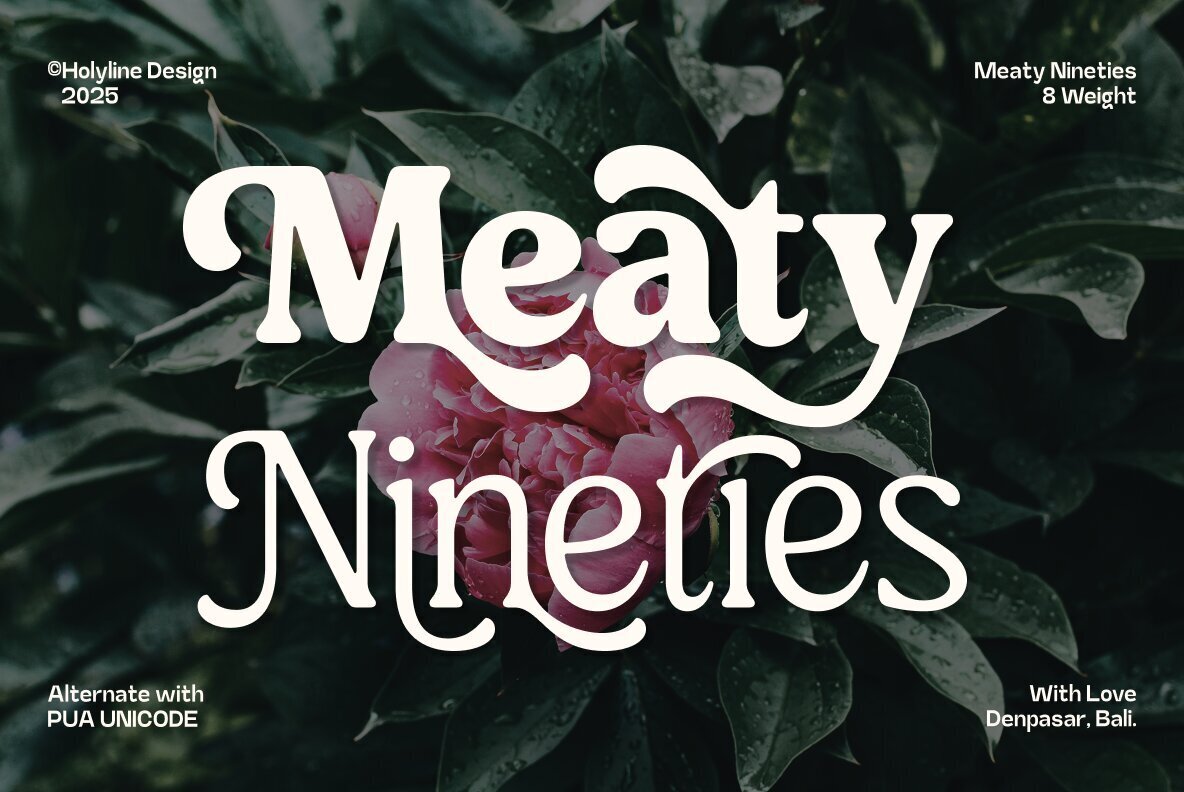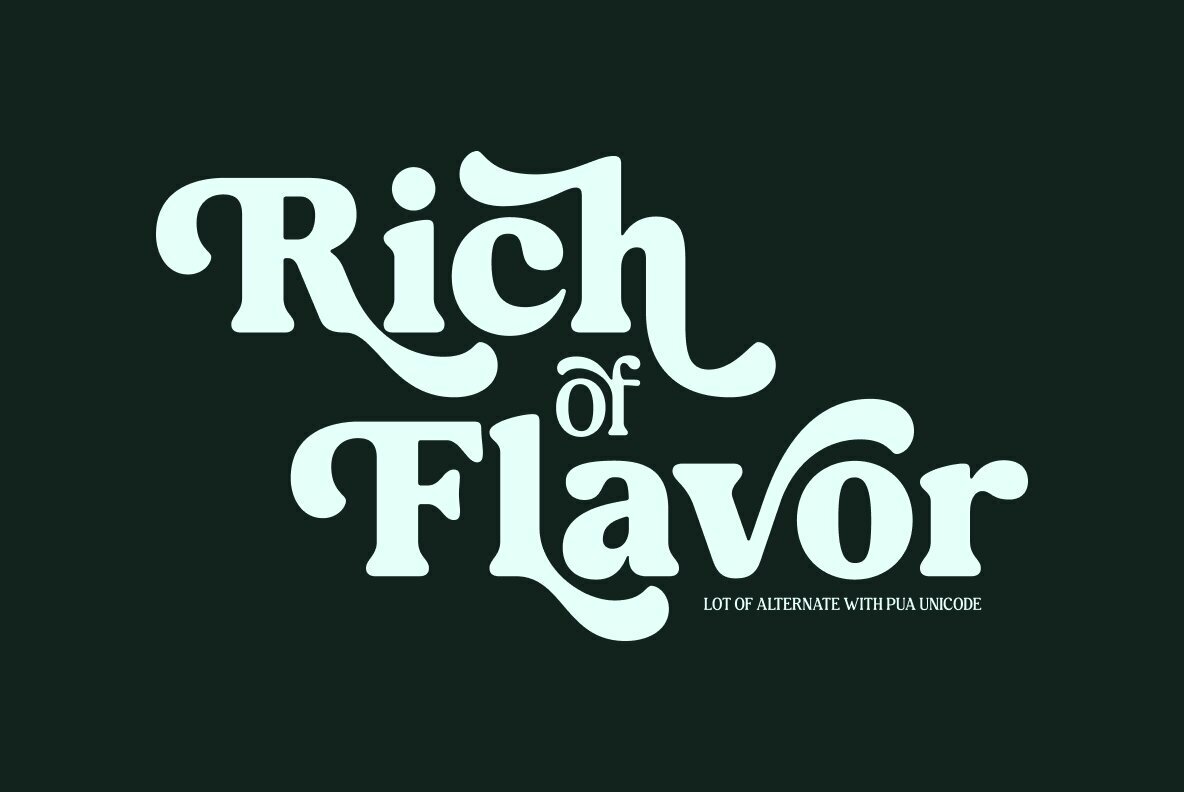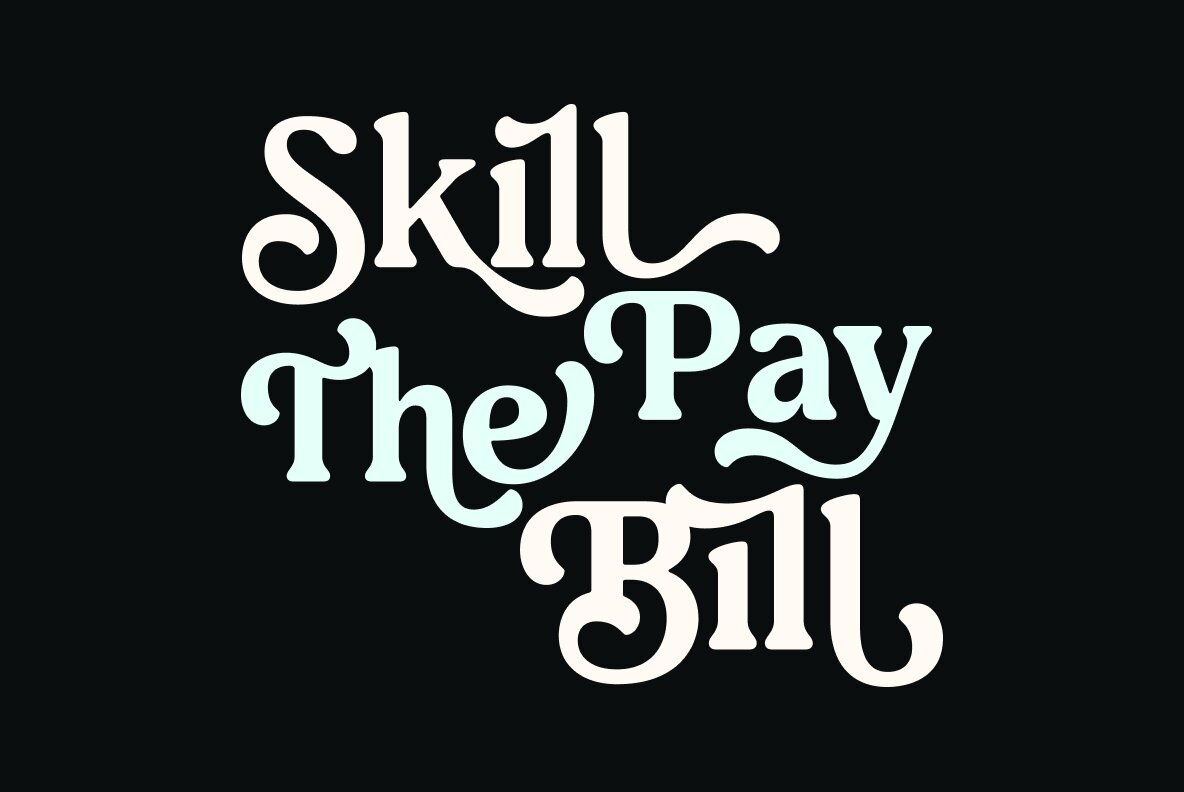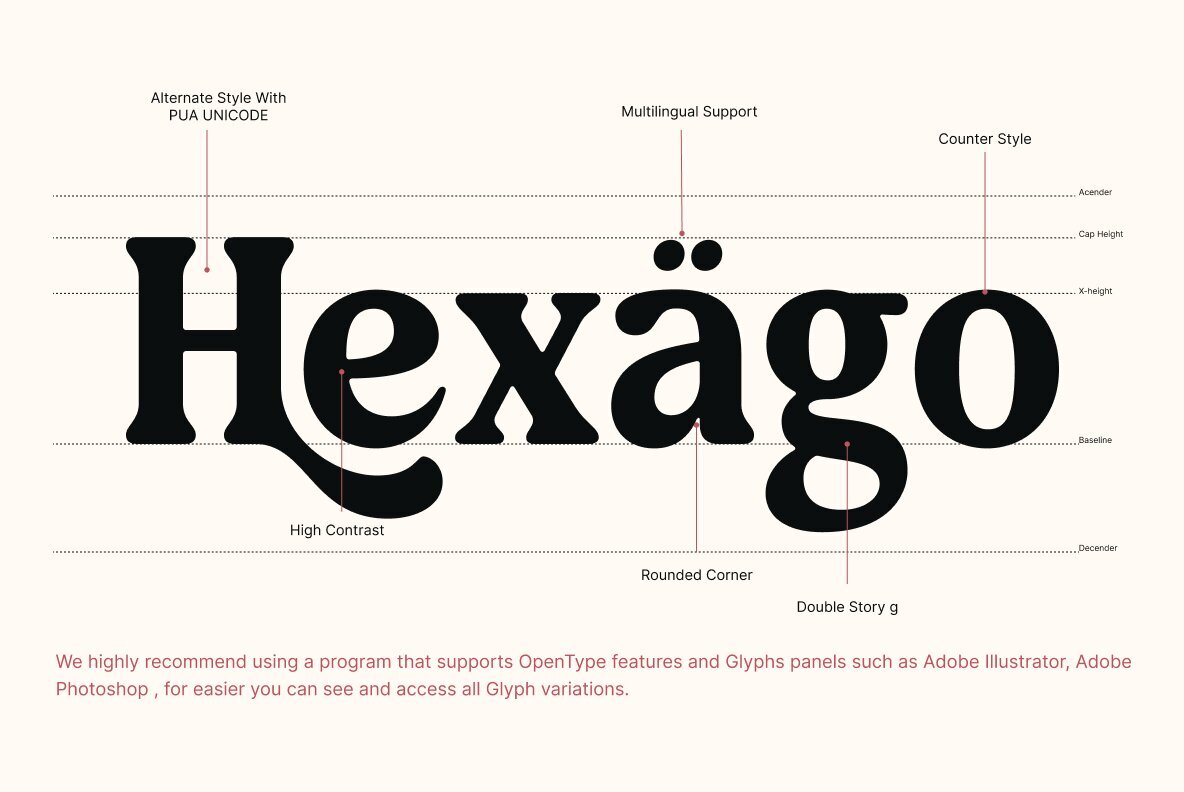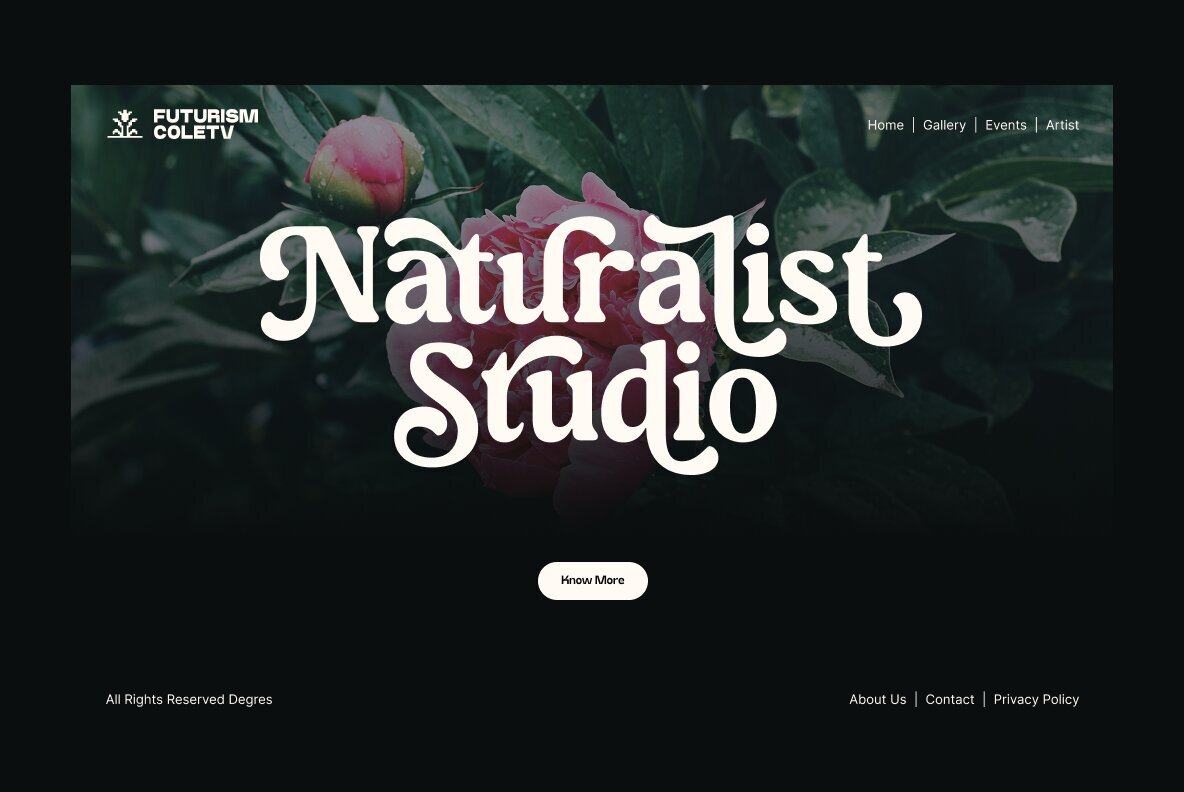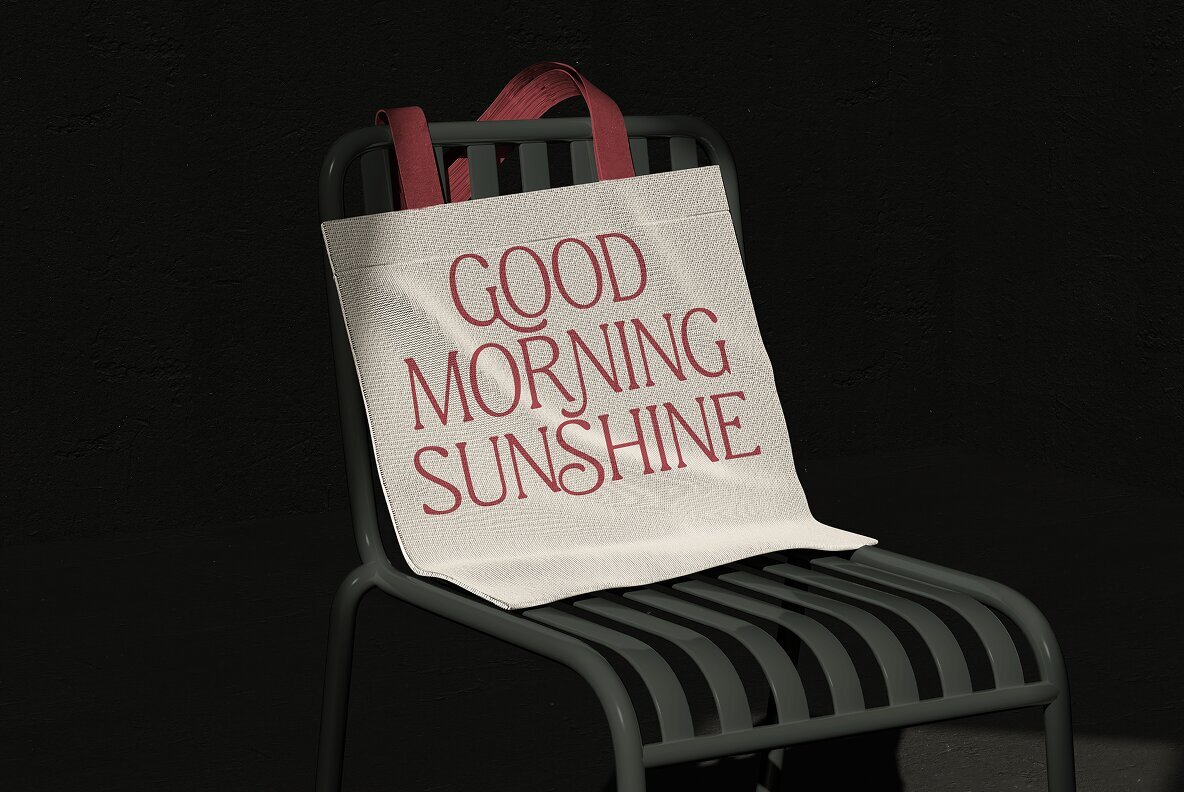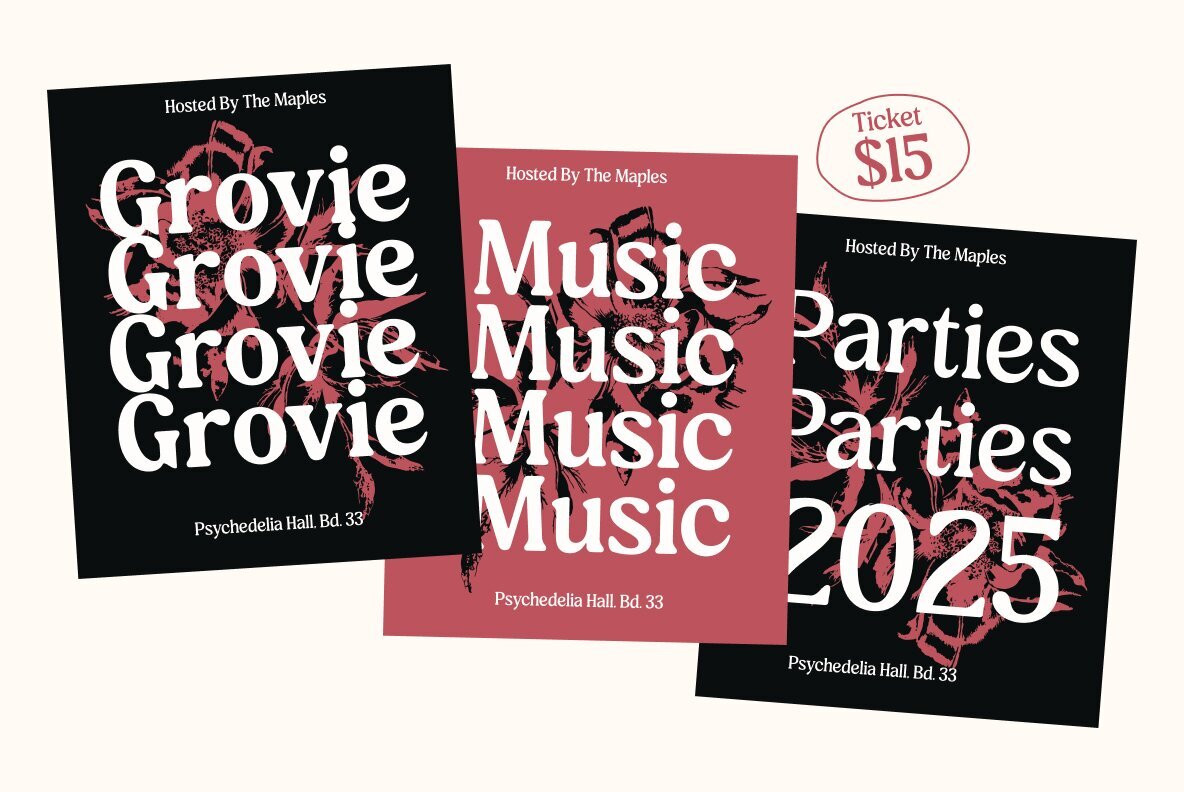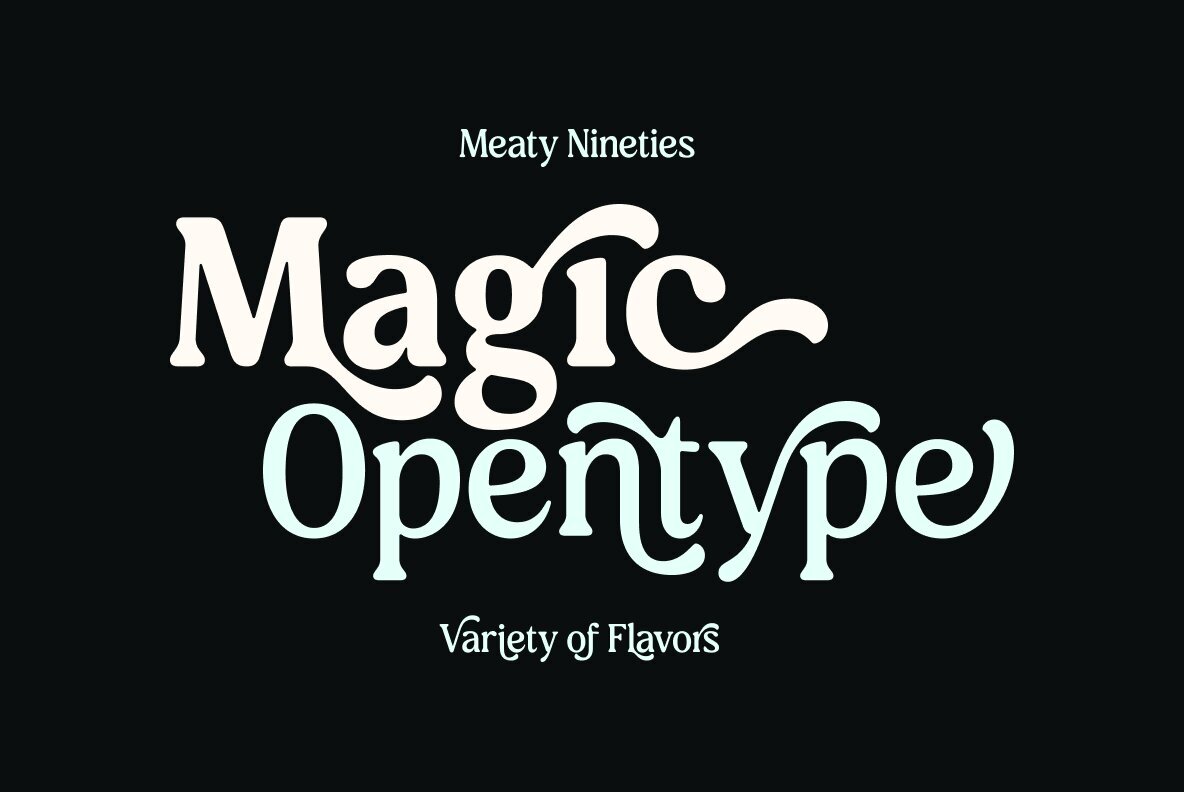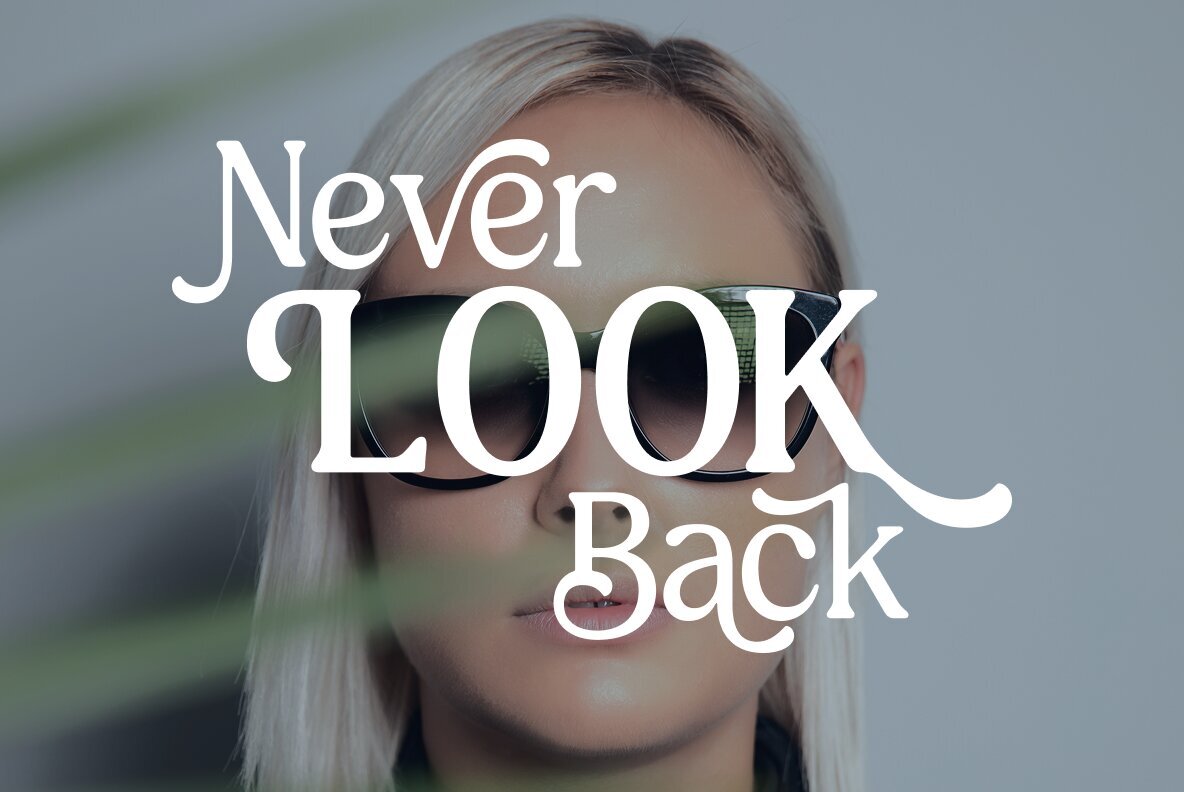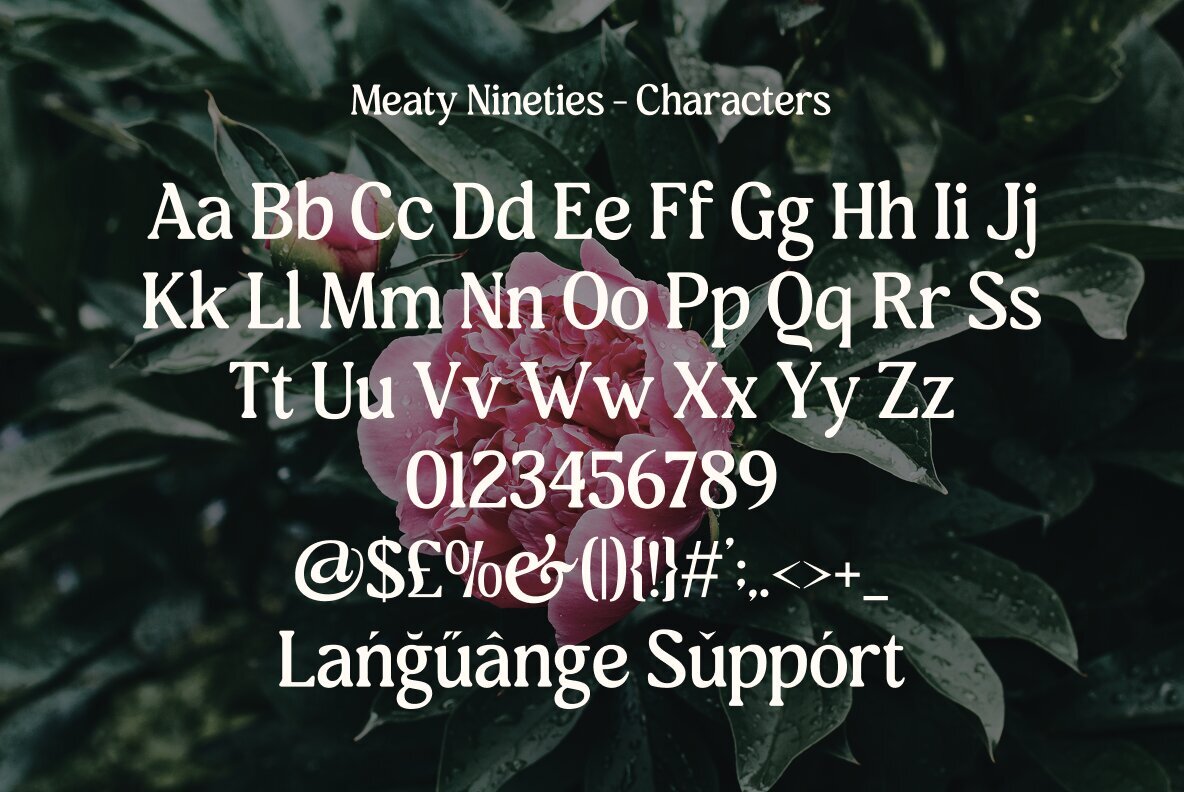
Meaty Nineties: A Bold Serif With Vintage Flair
Meaty Nineties is a dynamic serif display font that evokes the spirit of retro typography while infusing a modern edge. Drawing inspiration from iconic magazine typefaces and vintage aesthetics, this font delivers a nostalgic yet contemporary vibe to any design project.
Featuring 8 weights from thin to extra bold, Meaty Nineties offers remarkable versatility for subtle details and impactful headlines. Its extensive range of alternates enables seamless customization, producing dynamic curves and attractive letter pairings. This font is ideal for editorial layouts, branding, and retro-inspired designs, artfully blending playfulness with elegance to offer a touch of timeless charm.